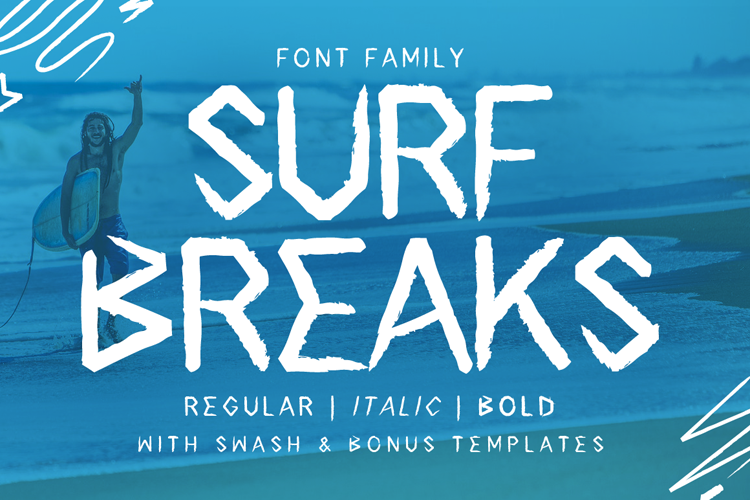
Take a break with the amazing Surf Breaks font family.
It will add a fresh and breezy feel to any design project that needs a hint of summer.
- Character Uppercase and Lowercase
- Brush Swash (A-z 0-9)